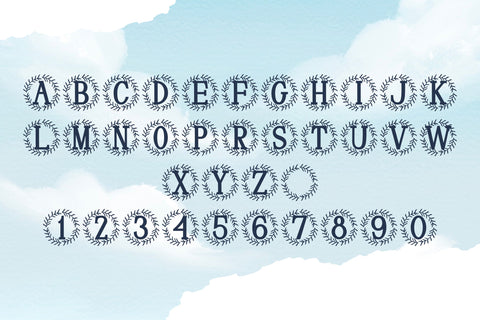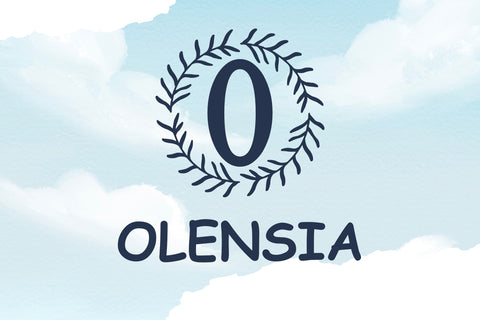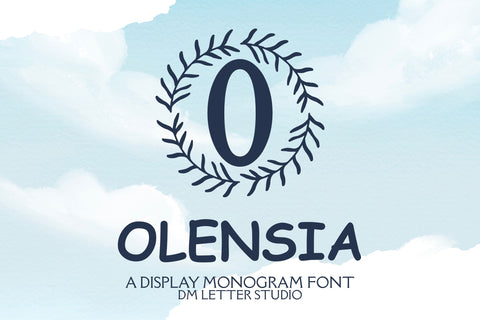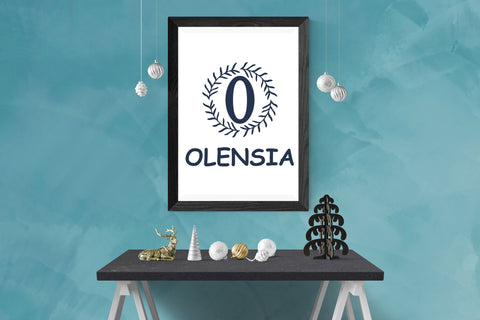
Olensia Monogram
Meet Olensia, the Monogram Font
Olensia Monogram turns simple initials into refined emblems with a soft, elegant feel that suits modern weddings and premium branding. The strokes are smooth and balanced, so letters stay clear at any size. Because counters remain open, tiny tags print crisp while large signage looks polished and gift-ready. Use it for wedding suites, boutique logos, keepsake gifts, wax seals, stationery, and luxury packaging. As a result, your designs look elevated without adding extra decoration.
Fast layouts with the Olensia Monogram Font
Start with a generous initial and let white space breathe. After that, add names, dates, or short titles in a simple supporting font. Because Olensia holds shape at small sizes, cards, cartons, acrylic signs, and tags print beautifully. In addition, the proportions pair well with oval borders, wreath frames, thin dividers, and minimal floral accents, so full sets come together in minutes. Finally, save palette pairs like champagne & charcoal, sage & ivory, navy & pearl, or blush & cocoa to repeat across product lines.
Creative uses and quick wins
- Logo seals, place cards, and certificate badges
- Wax seals, ribbon tags, and keepsake boxes
- Invitation covers, menu headings, and table numbers
- Favor stickers, tissue labels, and thank-you notes
- Select stylistic alternates for key letters
- Curves tuned for foil, letterpress, engraving, laser, vinyl, DTF, and sublimation
Design tips for Olensia Monogram Font
Keep copy short and let the initial lead. Also, add a fine inner stroke or a soft shadow to create depth on light backgrounds. For texture, try linen stocks, vellum wraps, or pearl papers. Finally, export at 300 DPI for print and at 2× size for web, so edges stay smooth everywhere.